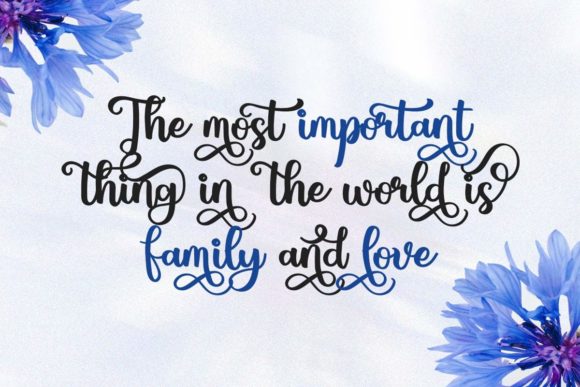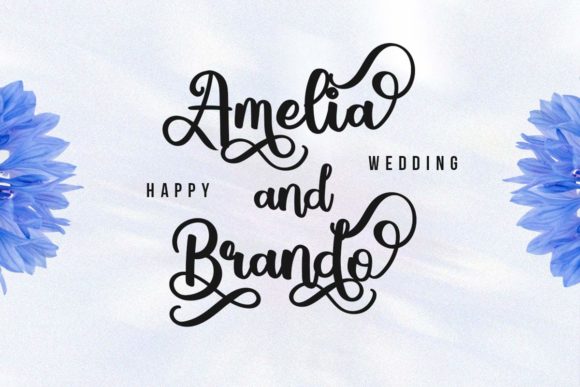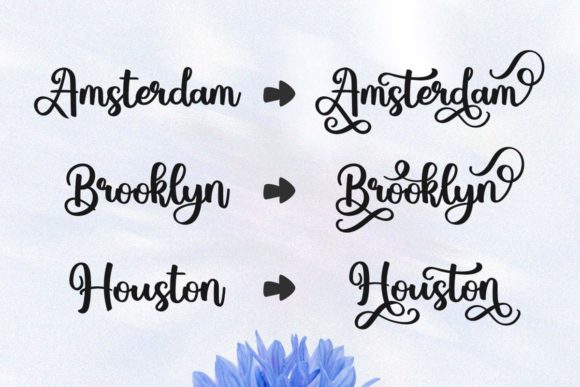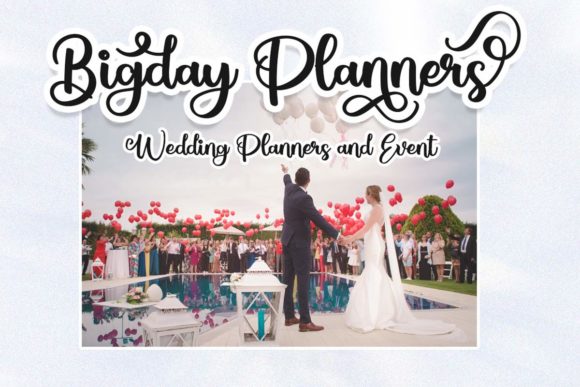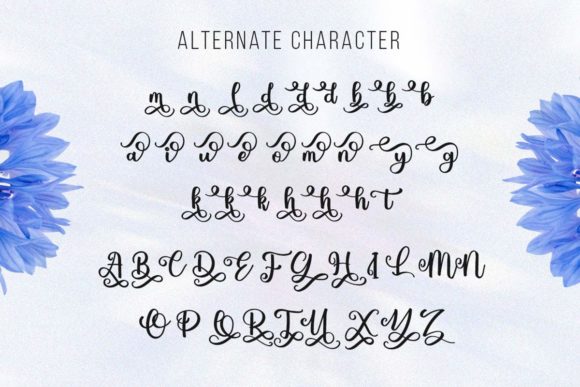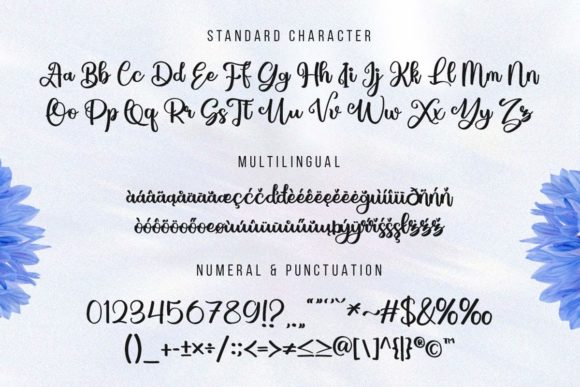
Introducing Blueberry Script Font: The Perfect Choice for Elegant Designs
Are you a designer or crafter looking for a font that exudes charm and elegance? Look no further than the Blueberry Script Font. This beautiful font is perfect for adding a handwritten touch to your designs, making it ideal for a variety of projects, from wedding invitations to business cards.
The Charm of Blueberry Script Font
Blueberry Script Font feels equally charming and elegant, making it a versatile choice for any design project. Its flowing script style and delicate lines evoke a sense of sophistication and refinement, perfect for creating beautiful and eye-catching designs. Whether you’re designing a wedding invitation, a thank you card, or a quote, this font is sure to impress.
One of the best things about Blueberry Script Font is its versatility. It looks stunning on a wide range of design projects, including:
- Wedding invitations: Add a touch of elegance to your wedding invitations with this beautiful font.
- Thank you cards: Show your appreciation with a personalized thank you card featuring the Blueberry Script Font.
- Quotes: Make your quotes stand out with this beautiful and elegant font.
- Greeting cards: Create beautiful and heartfelt greeting cards for any occasion.
- Logos: Add a touch of sophistication to your logo with this elegant font.
- Business cards: Stand out from the crowd with a business card featuring the Blueberry Script Font.
Another great feature of the Blueberry Script Font is that it is PUA encoded. This means that you can access all of the glyphs and swashes with ease, giving you even more creative freedom to customize your designs. With PUA encoding, you can:
- Access a wide range of glyphs and swashes to add a personal touch to your designs.
- Easily customize your text to fit your design style.
- Create unique and eye-catching designs that stand out from the crowd.
Why Choose Blueberry Script Font?
So why choose the Blueberry Script Font for your design projects? Here are just a few reasons:
- Elegant and charming: This font exudes sophistication and refinement, making it perfect for creating beautiful designs.
- Versatile: Use it on a wide range of design projects, from wedding invitations to business cards.
- Easy to use: With PUA encoding, you can access all of the glyphs and swashes with ease.
- Unique: Stand out from the crowd with a font that is both elegant and eye-catching.
Tips for Using Blueberry Script Font
Here are a few tips for using the Blueberry Script Font in your design projects:
- Use it sparingly: This font is perfect for adding a touch of elegance to your designs, but use it sparingly to avoid overwhelming the design.
- Pair it with other fonts: Experiment with pairing the Blueberry Script Font with other fonts to create a unique and eye-catching design.
- Experiment with colors: Try out different colors to see what works best with this beautiful font.
In conclusion, the Blueberry Script Font is a beautiful and elegant font that is perfect for adding a handwritten touch to your design projects. With its charming and sophisticated style, it’s ideal for a wide range of projects, from wedding invitations to business cards. And with PUA encoding, you can access all of the glyphs and swashes with ease. So why not give it a try and see what beautiful designs you can create?